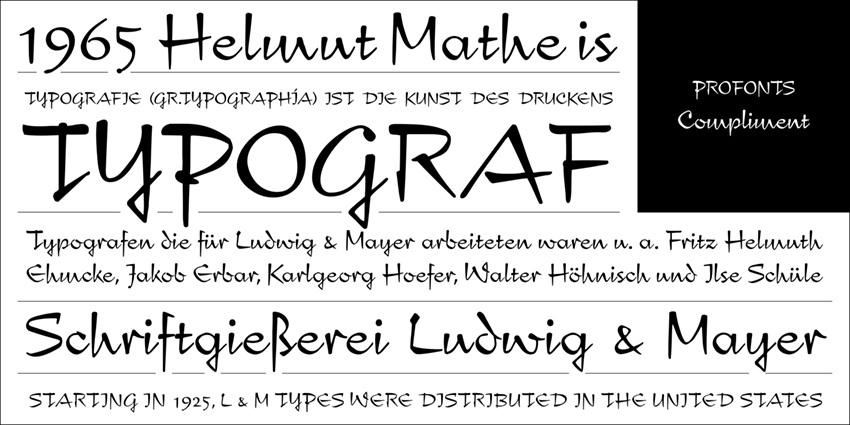
Compliment Font
Compliment Font is perfect for greeting card designs, appreciation certificates, customer service communications, positive feedback campaigns, thank you note stationery, recognition awards, motivational poster designs, and uplifting marketing materials where gratitude and positive acknowledgment are essential.
What makes Compliment Font so exciting is its warm ability to convey genuine appreciation and heartfelt gratitude through friendly letterforms that instantly communicate positivity while maintaining professional readability. The welcoming character design reflects the authentic warmth and sincere recognition that makes compliments truly meaningful and memorable.
The Compliment Font family includes light, regular, medium, and bold weights, with cheerful variants and appreciation-inspired decorative elements that provide comprehensive tools for creating positive branding and gratitude-focused design systems.
This uplifting typeface embodies the essence of genuine appreciation, combining emotional authenticity with contemporary communication standards. The Compliment Font Free Download offers businesses access to typography that communicates sincere gratitude and positive recognition.
The font's friendly character proportions and gentle curves create immediate associations with kindness, appreciation, and positive human interaction. Each letterform has been designed to convey the warmth and sincerity that makes genuine compliments so powerful in building relationships and fostering goodwill.
Compliment Font transforms business communications into meaningful expressions of appreciation that strengthen customer relationships and build brand loyalty. The typeface's positive personality makes it ideal for companies emphasizing customer service excellence and employee recognition programs.
From customer appreciation campaigns to employee award ceremonies, this font brings authentic warmth that resonates with audiences seeking genuine recognition and positive acknowledgment. The versatile design maintains its appreciative character across both traditional print materials and modern digital communication platforms.